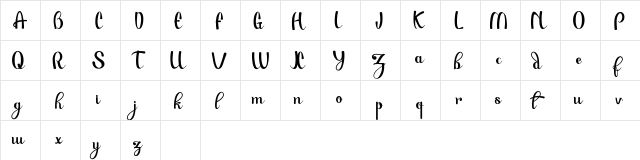
Paulo Pacito - Regular
Design Context for Paulo Pacito - Typeface
Paulo Pacito - is a composed and adaptable typeface that performs quietly and consistently across a wide range of design contexts.